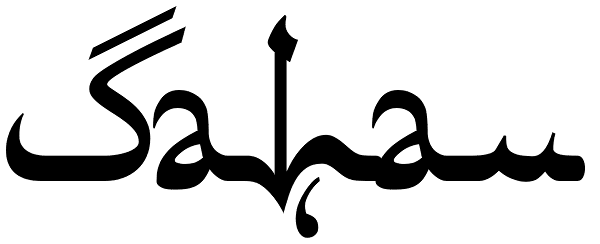
Sahan
Sahan is a typeface which looks almost like Arabic, but it is not a real Arabic font. This simulation font includes upper and lower case Latin alphabets and numerals. Language support includes Western, Central and Eastern European character sets, as...